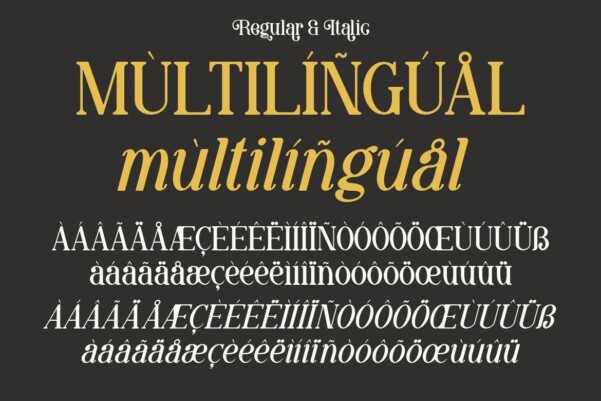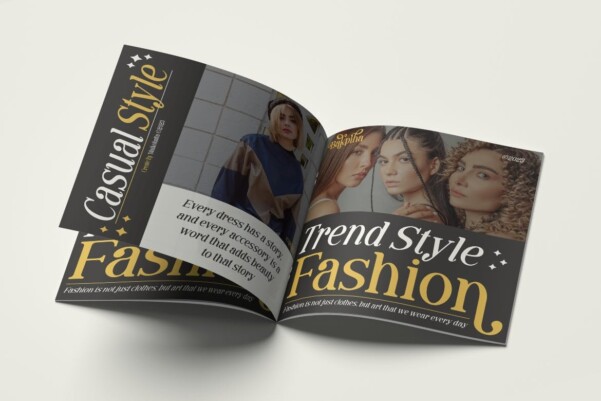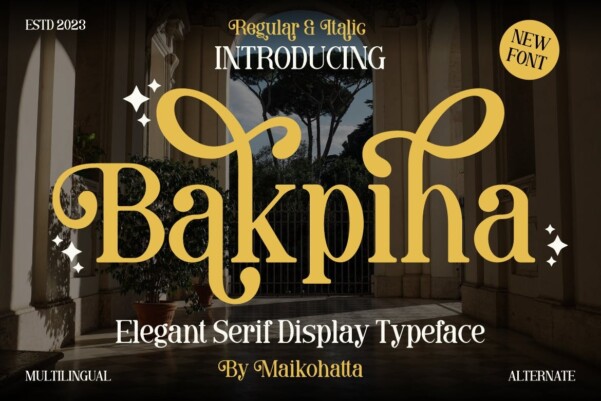
Bakpiha Font
Bakpiha Font – Elegant Serif Display Typeface. This font is a typographic masterpiece that harmonizes elegance and sharpness. Each letter of this font is meticulously designed, with an emphasis on balanced proportions and impeccable alignment. This font is perfect for various contexts, such as print design, promotional materials, or magazine layouts